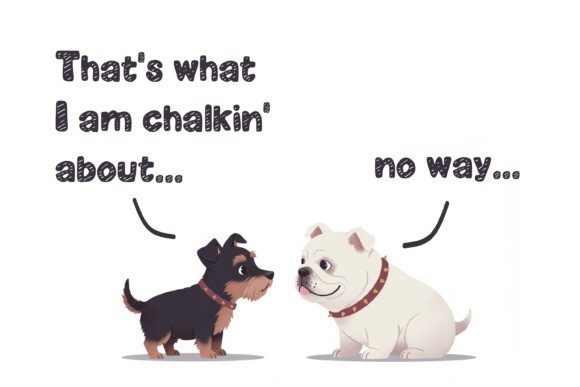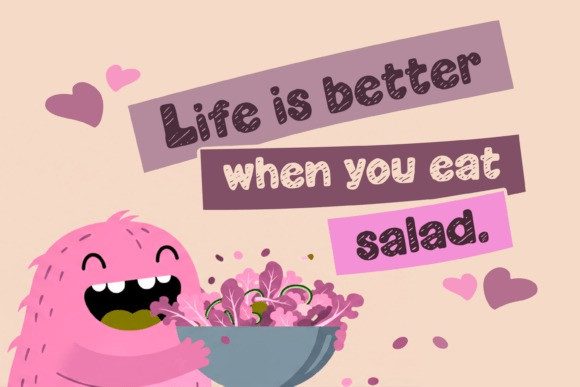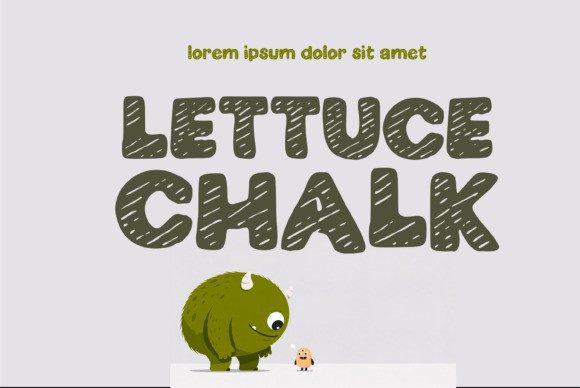
Lettuce Chalk Font is a fun and bold handwritten display font that bursts with personality! Its chubby, textured chalk-style letters bring a joyful and creative vibe to any project. Perfect for teachers, crafters, and designers who love playful, eye-catching typography.
Whether you’re creating kids’ posters, classroom quotes, stickers, t-shirt prints, or branding, this font adds a delightful handmade charm that stands out effortlessly.